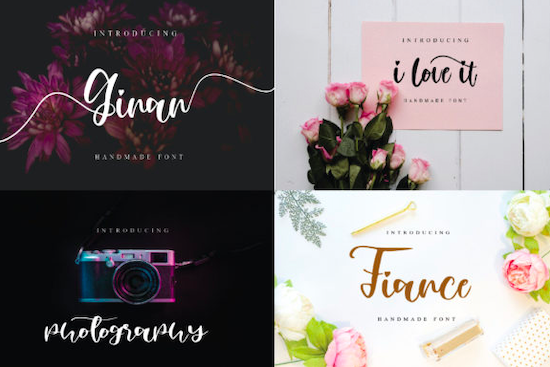
Ginan font is a refined calligraphy script typeface. It was carefully designed with a touch of classy and was released by Goodigital. This font is a perfect combination of authentic calligraphy and timelessly classy.
Ginan is suitable for any design needs like -shirts, cards, website/blog, editorial design, book/cover title, poster quotes, logos, modern advertising design, branding, logo.
Ginan Calligraphy Handwritten Font
Ginan Font